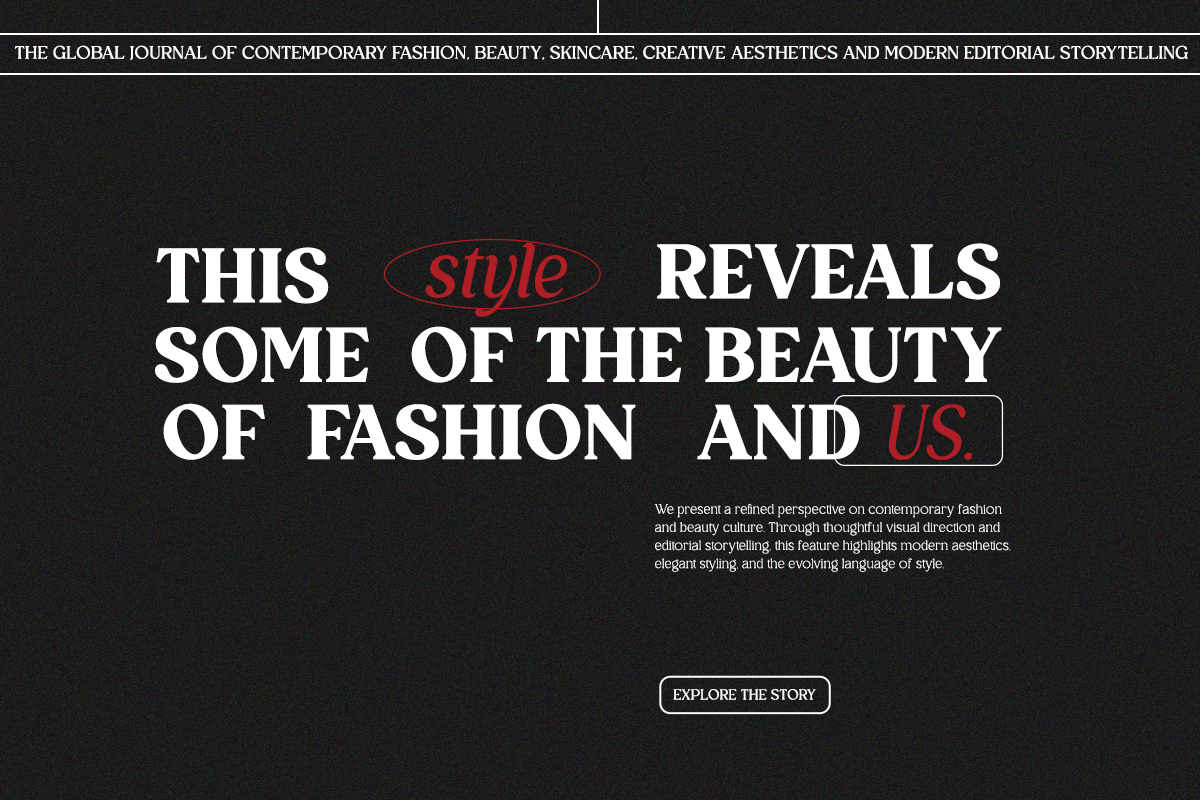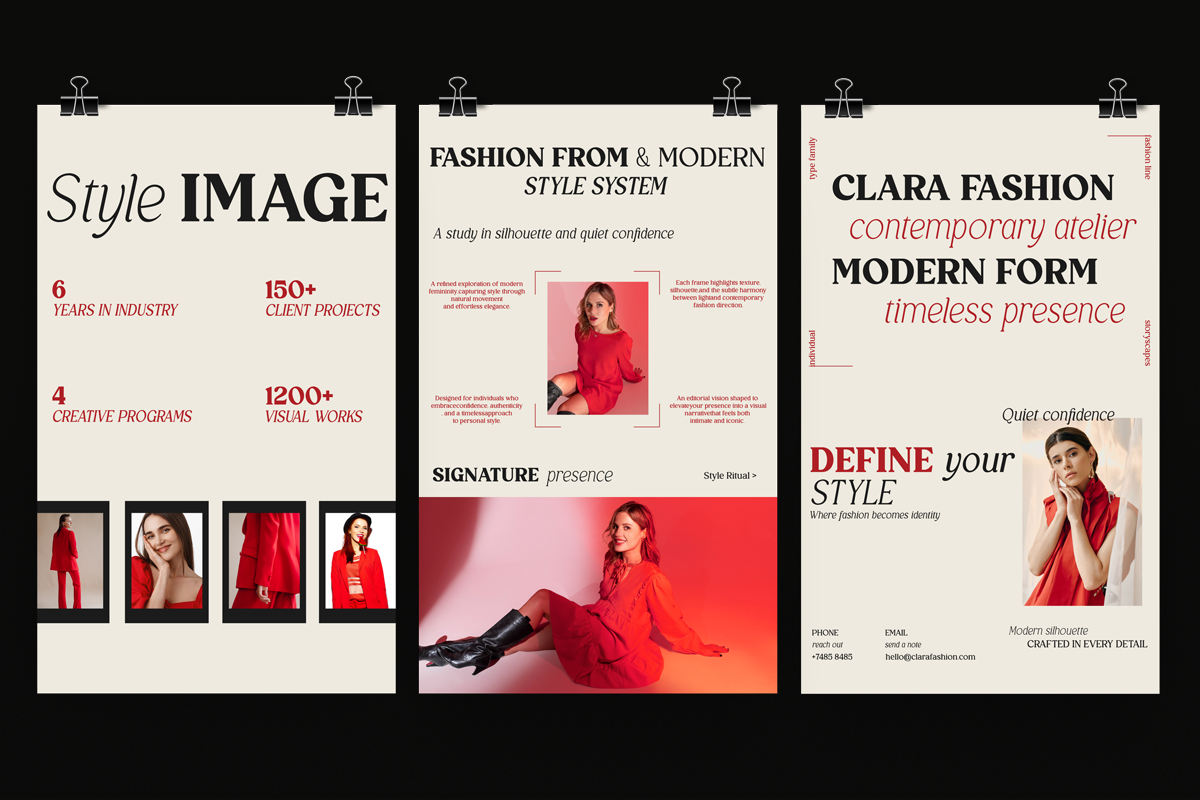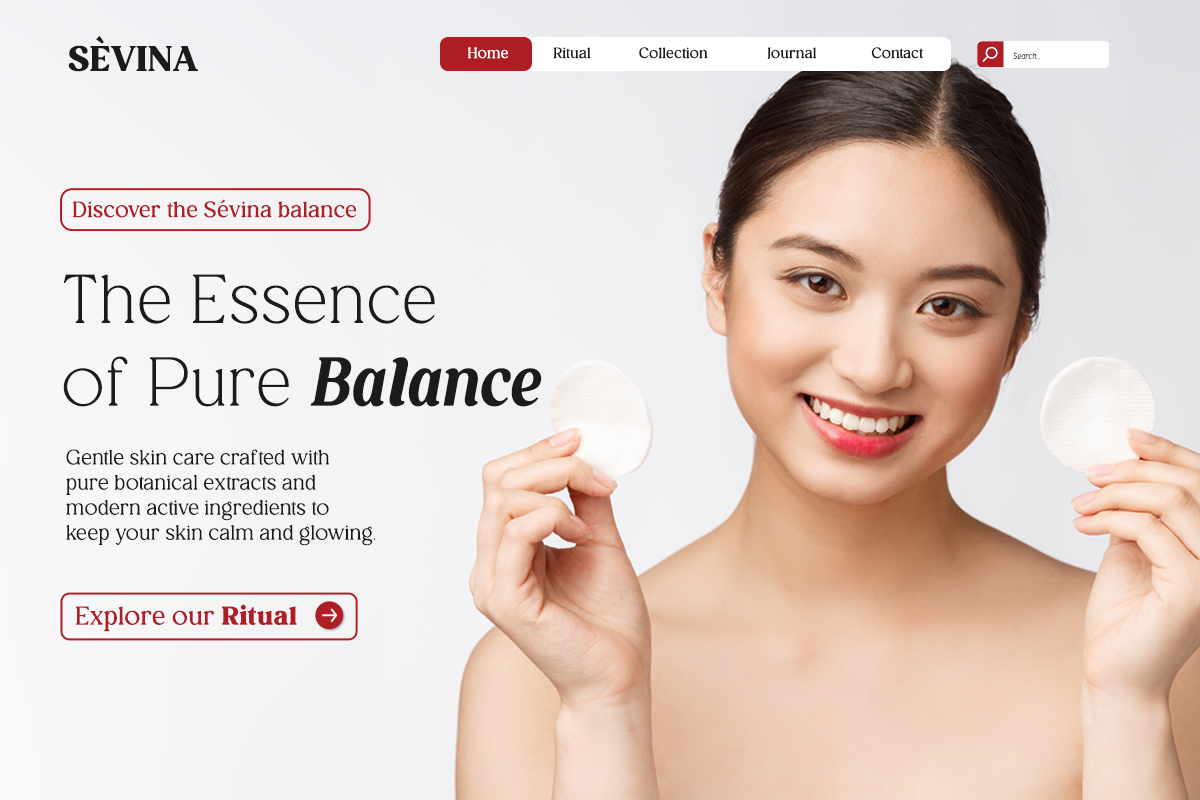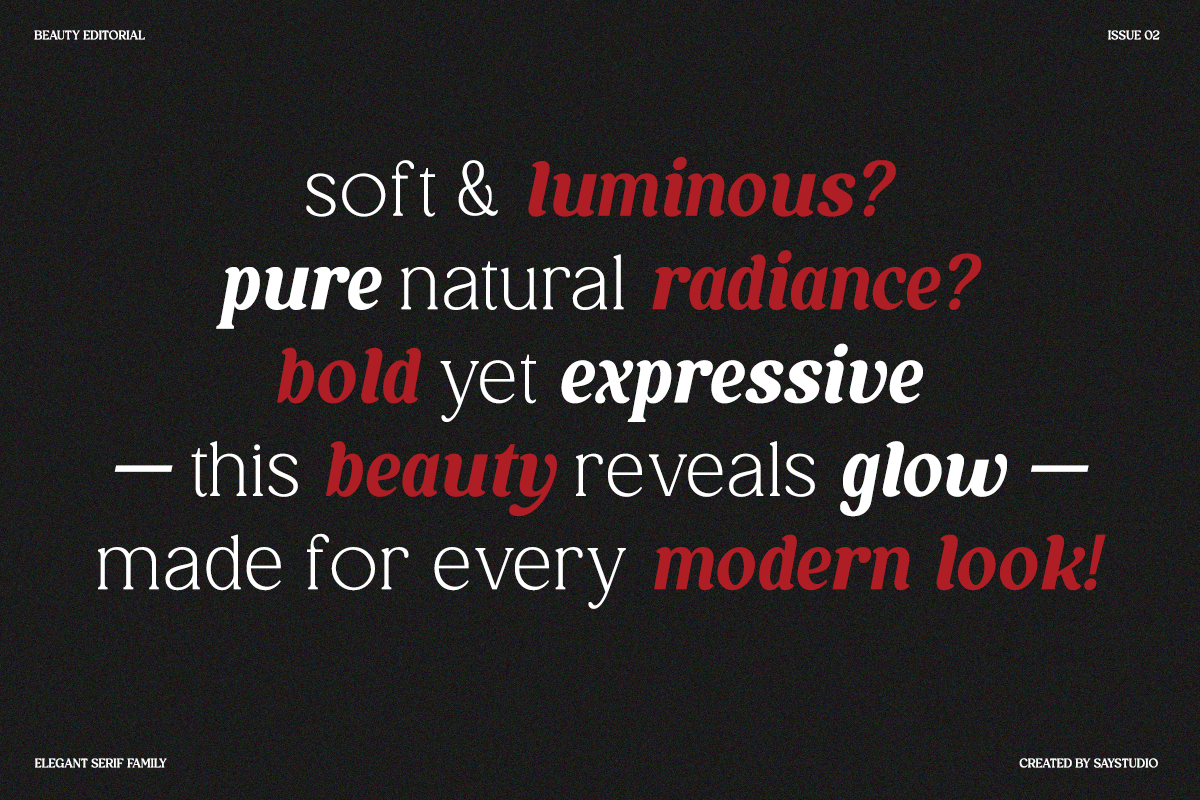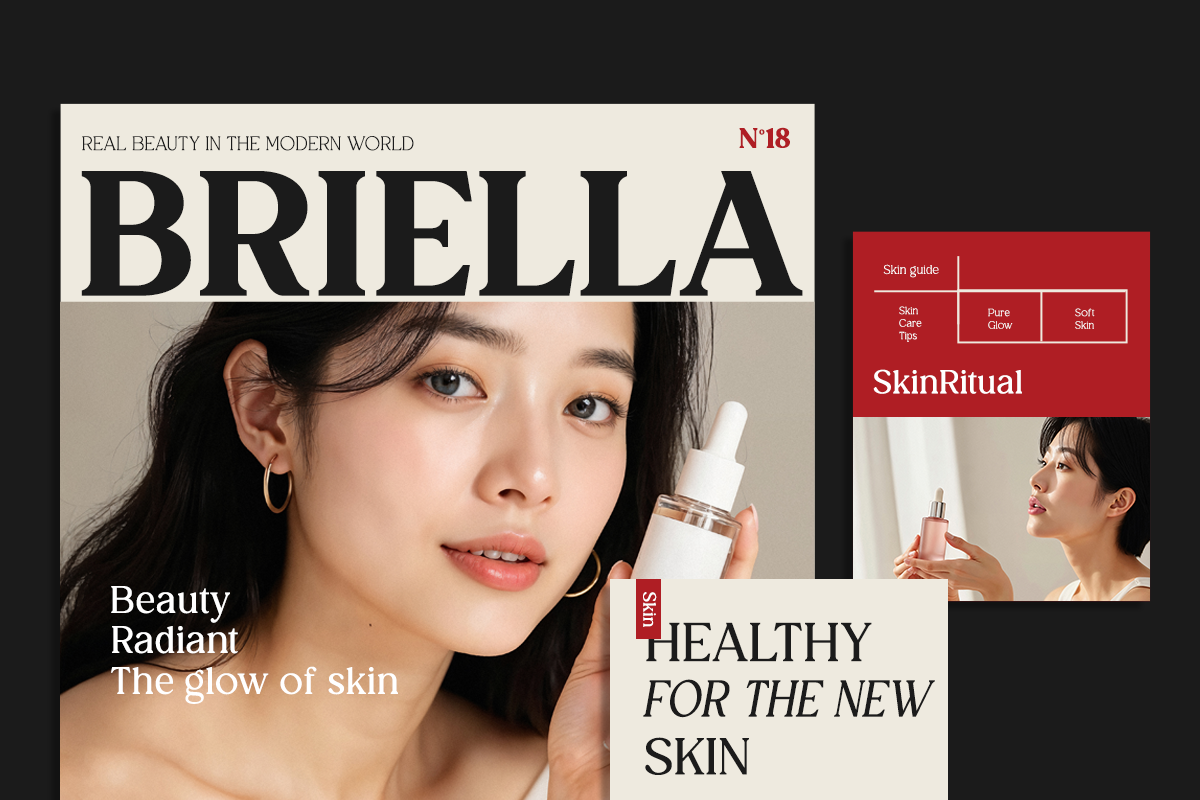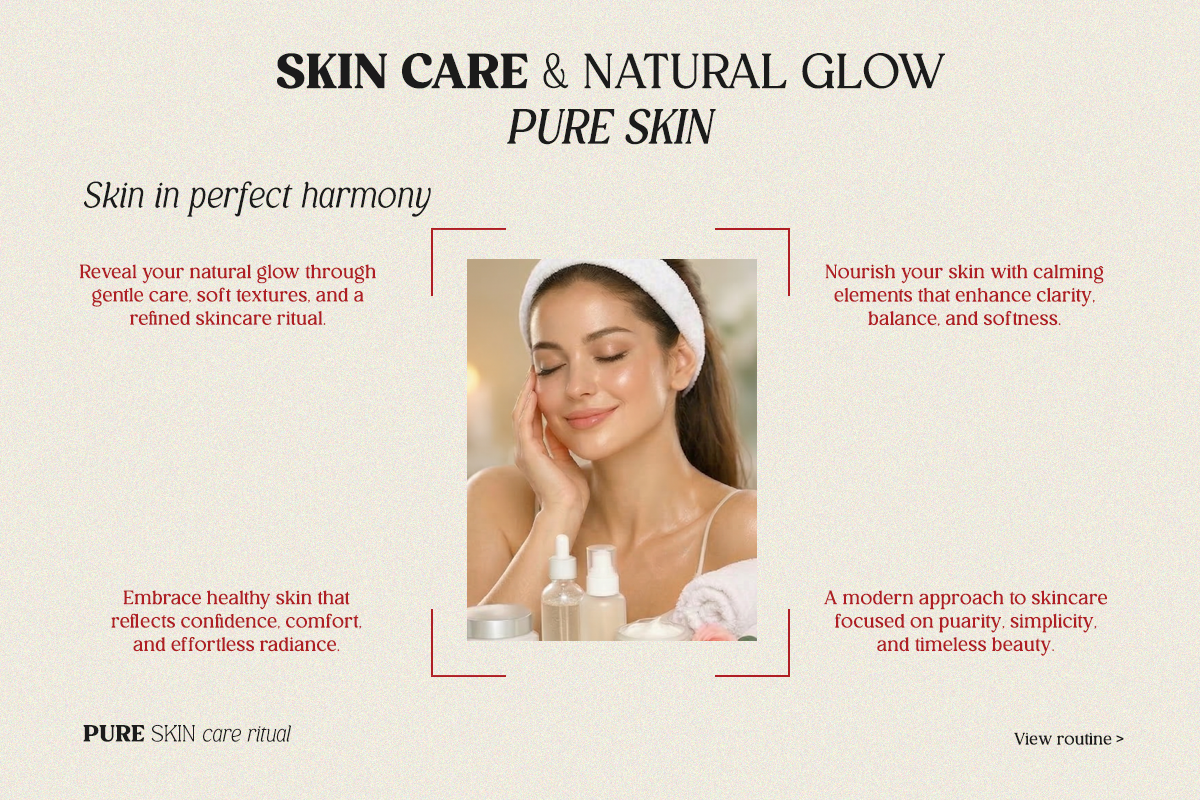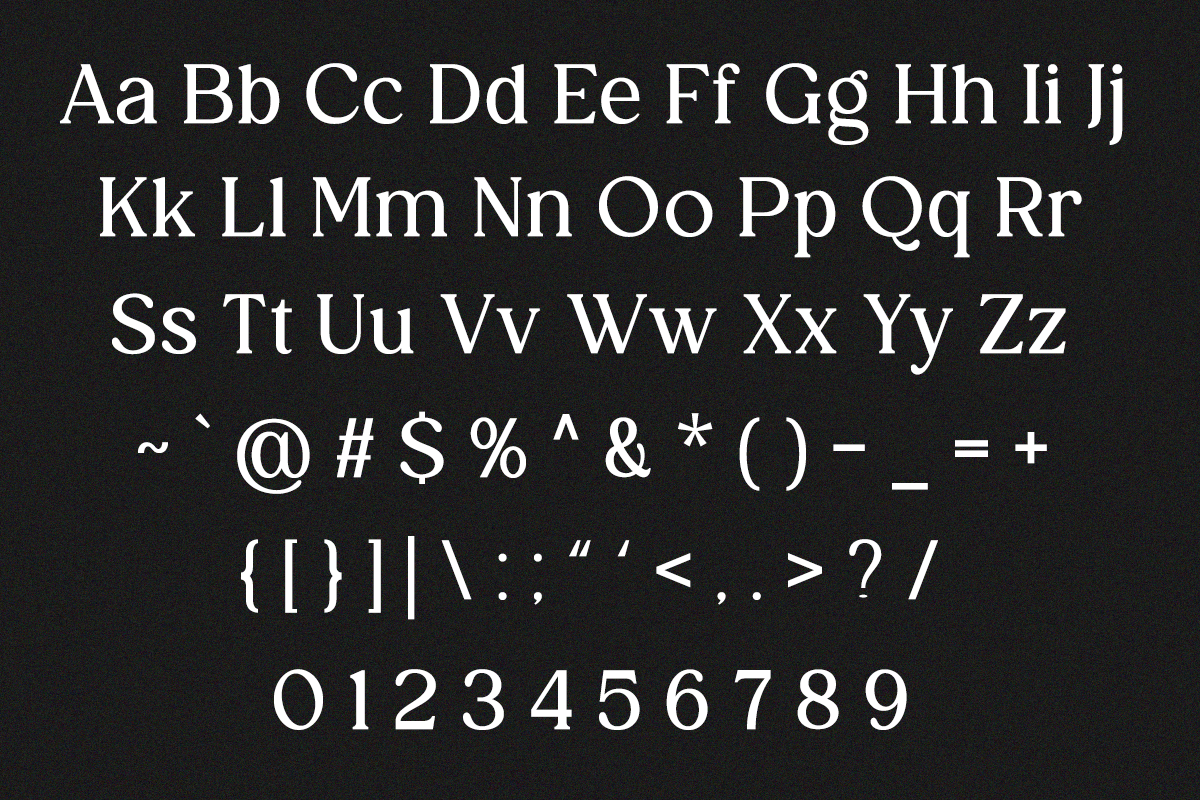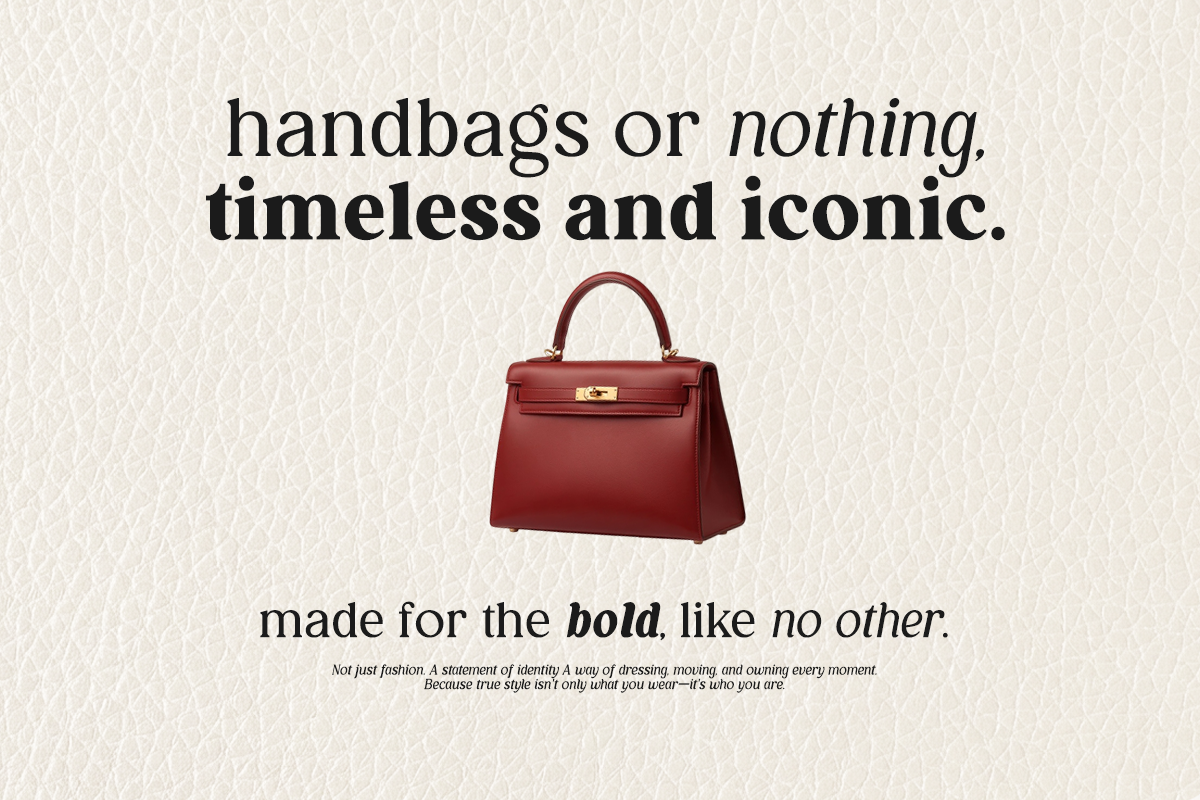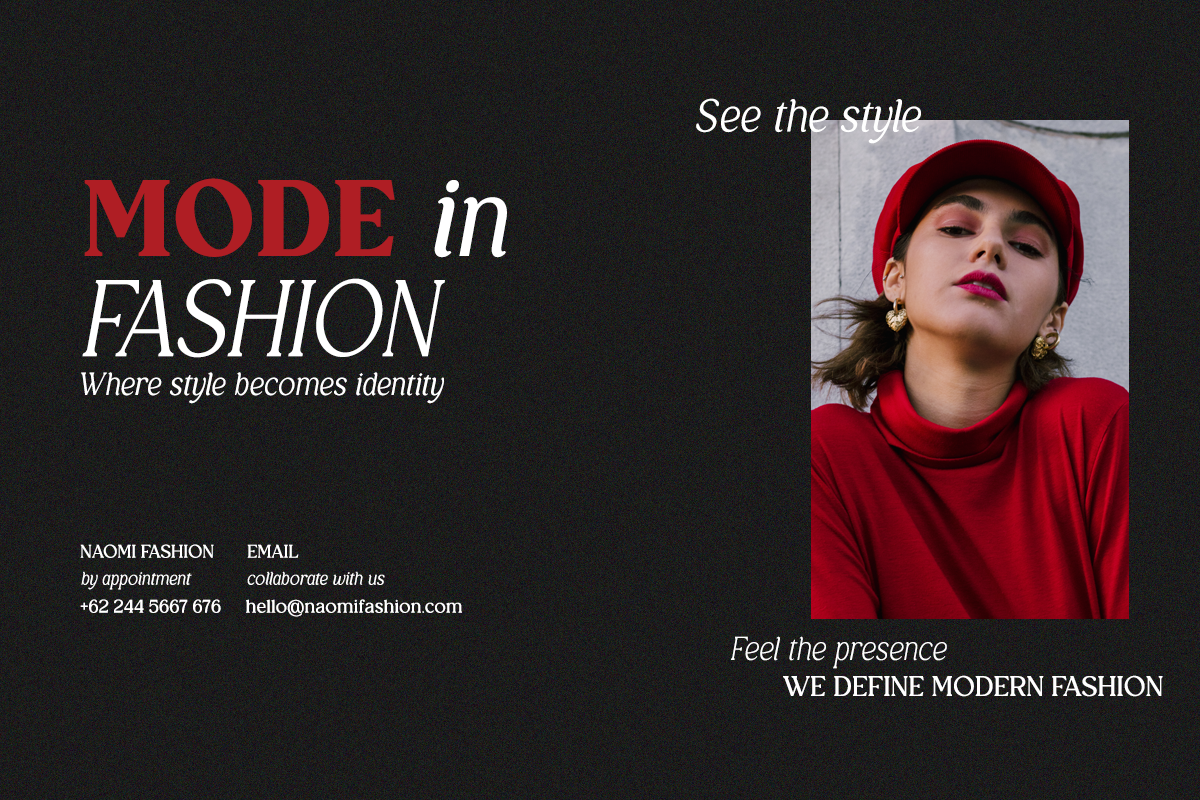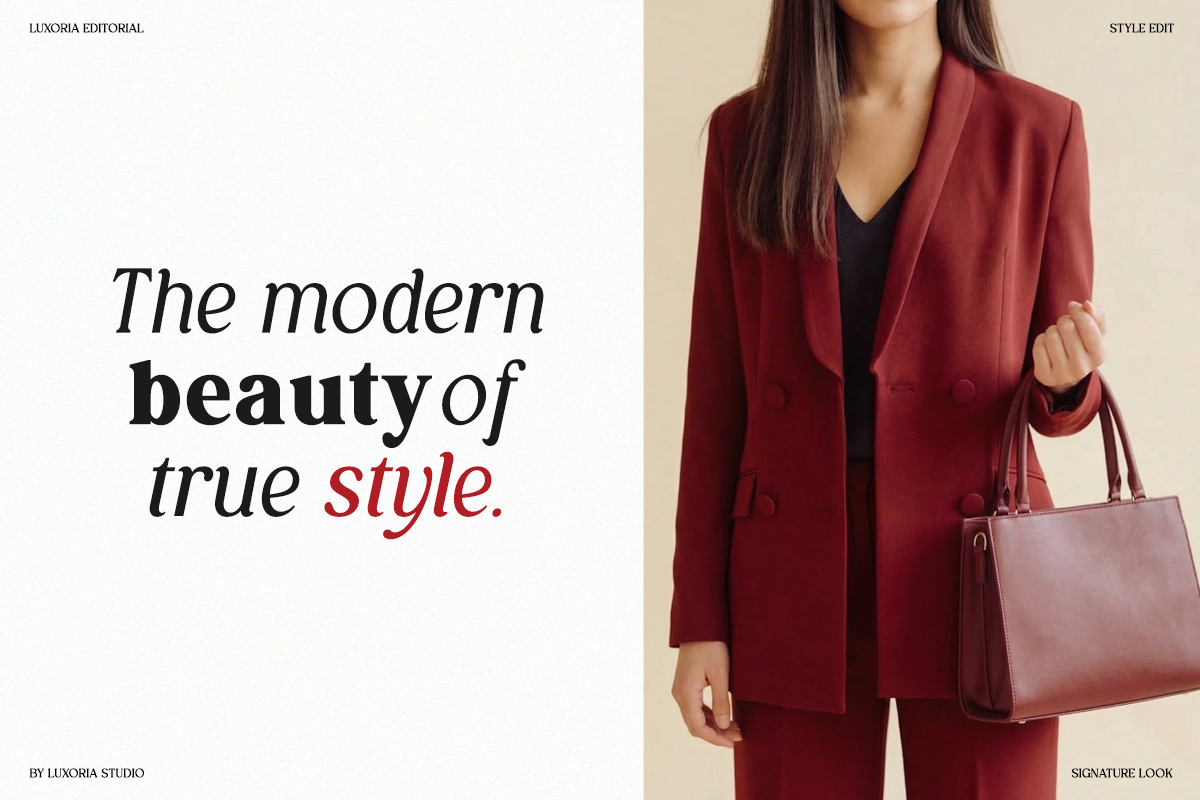
Royal Club - Elegant Serif Family
Royal Club is a modern elegant serif family designed to deliver a perfect balance between classic sophistication and contemporary style. With 14 styles and 7 weights, this typeface offers a complete and versatile system that brings refinement and flexibility to any design project. Its smooth curves, high-contrast strokes, and balanced proportions create a luxurious and timeless visual identity.
Ideal for editorial layouts, luxury branding, fashion magazines, advertising, and premium packaging, Royal Club elevates your design with a strong yet graceful presence. The wide range of weights allows seamless hierarchy, making it perfect for both bold headlines and elegant body text compositions.
Whether you're creating a high-end brand identity, designing stylish publications, or building a refined visual system, Royal Club provides the sophistication and versatility needed for professional results. This font family is crafted for designers who seek elegance, prestige, and modern luxury aesthetics.